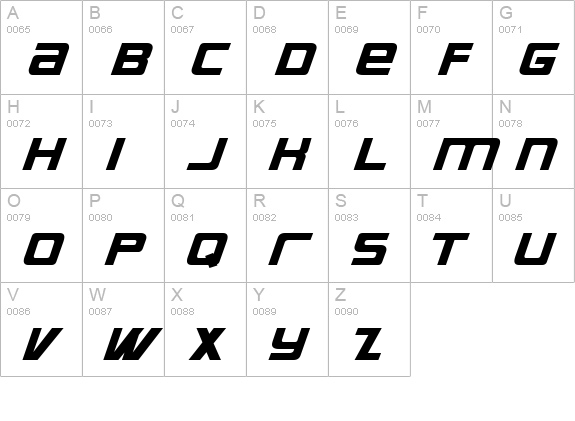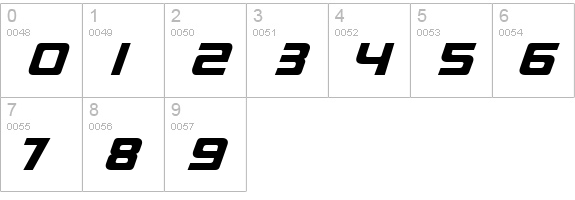
Bauer font is a beautifully crafted typeface that combines elegance and versatility. With its timeless design and clean lines, it is perfect for a wide range of creative projects. Whether you need a font for a professional logo, an eye-catching advertisement, or a stylish invitation, Bauer font is sure to make a lasting impression. One of the most appealing aspects of Bauer font is that it is free. Yes, you read that right! This stunning typeface is freely available to download at FontsMarket.com. You can easily access this font and enhance your design projects without spending a dime. Bauer font offers a wide range of font weights and styles, allowing you to experiment and find the perfect fit for your project. From bold and impactful to delicate and refined, Bauer font has it all. Its legibility and readability make it suitable for both print and digital applications, ensuring that your message will be conveyed with clarity and style. The attention to detail in Bauer font is truly exceptional. Each character is meticulously designed, resulting in a harmonious and balanced typeface. Its smooth curves and precise letterforms create a sense of sophistication and professionalism. Whether you're a graphic designer, a branding expert, or simply an individual looking to add a touch of elegance to your personal projects, Bauer font is a must-have. It is a versatile typeface that can elevate any design, making it stand out from the crowd. So, don't miss out on this amazing opportunity to enhance your creations with Bauer font. Download it for free at FontsMarket.com and let your creativity shine.